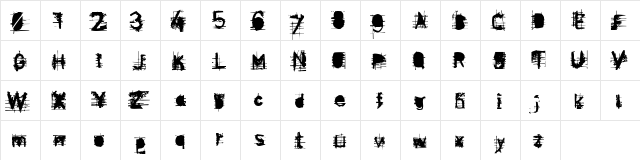
disenfranchide fightthepower
Design Context for disenfranchide Typeface
disenfranchide brings high-energy athletic personality to the page — its confident, muscular forms are built for impact.
A natural choice for gym brands, fantasy sports, jersey lettering, and action-driven headlines.
Pro Tip: Use disenfranchide in all-caps headlines where its athletic energy can fully express itself. Pair with a solid, simple sans for supporting text.